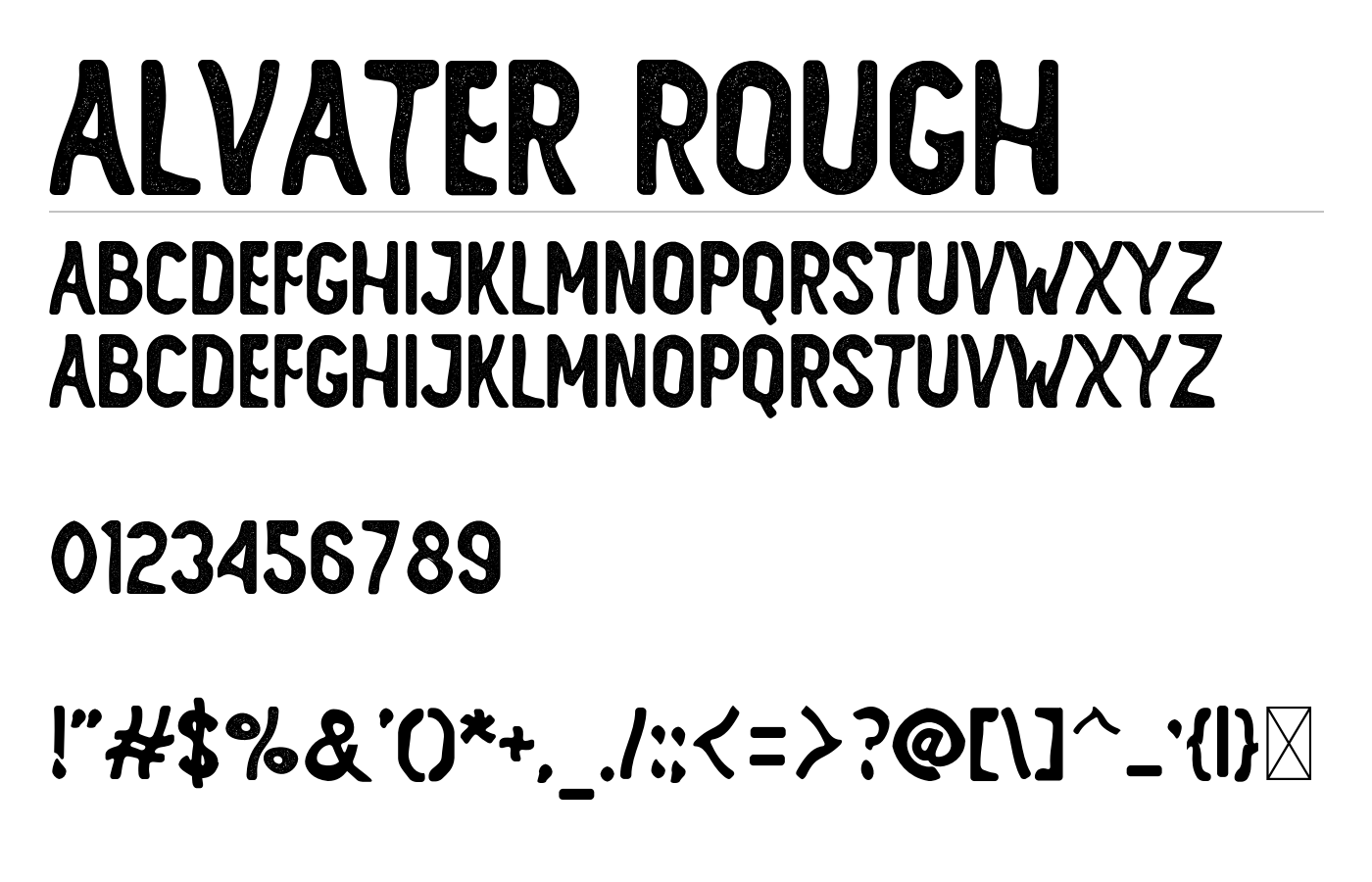
ALVATER Rough is a bold, playful sans serif font with a handcrafted, textured look that adds personality and charm. Its irregular shapes and slightly rough edges make it ideal for creative, casual designs, bringing a warm and approachable feel. This font works well in logos, posters, and branding where a unique, friendly style is desired.
ALVATER Rough Font
About ALVATER Rough Font
| Font family | ALVATER Rough Font |
| Designer | Vultype Co |